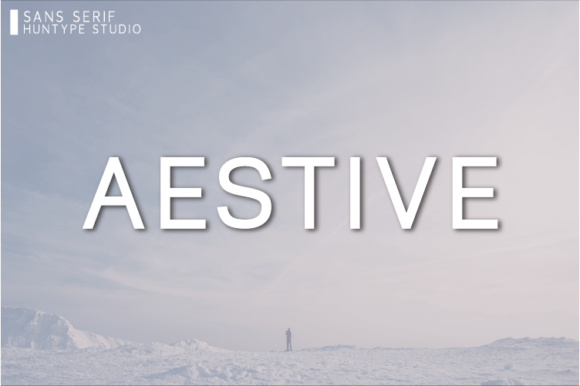
The Designer’s Delight: Aestive Font
I still remember the frustration of working on a project, hours spent crafting the perfect design, only to be held back by one thing: the font. It was a client request for a modern, minimalist look, but every sans serif font I tried seemed too bland or too bold. That’s when I stumbled upon Aestive, a game-changing font that has since become a staple in my design toolkit.
Aestive: The Minimalist’s Dream
Aestive is a minimal and neat sans serif font that’s incredibly versatile. Its clean lines and simple shapes make it perfect for a wide range of projects, from branding and advertising to crafting and DIY tutorials. With Aestive, you can add a touch of sophistication and elegance to your designs, making them stand out in a crowded creative landscape.
What I Love About Aestive ✨
- ✅ Clean and minimalist design: Aestive’s simple shapes and clean lines make it perfect for modern designs.
- ✅ Highly legible: Even at small sizes, Aestive remains clear and easy to read.
- ✅ Versatile: Aestive works well in a variety of contexts, from digital designs to print materials.
- ✅ OpenType features: Aestive supports a range of OpenType features, including glyphs and stylistic alternates.
- ⚠️ Limited italic options: Aestive’s italic styles are somewhat limited, which may not be ideal for designs that require a lot of emphasis.
- ⚠️ Not ideal for body text: While Aestive is legible, it’s not the best choice for long blocks of body text due to its minimalist design.
The Designer Behind Aestive
Aestive was designed by a team of creatives who wanted to create a font that was both beautiful and functional. Inspired by modern design trends and a passion for minimalism, Aestive was crafted to be a versatile font that could be used in a wide range of contexts. From branding and advertising to crafting and DIY tutorials, Aestive is the perfect choice for designers who want to add a touch of sophistication to their work.
| Author | Huntype |
Q: What is Aestive font?
A: Aestive is a minimal and neat sans serif font designed for use in a wide range of creative projects.
Q: What are the key features of Aestive?
A: Aestive features clean lines, simple shapes, and a highly legible design. It also supports OpenType features, including glyphs and stylistic alternates.
Q: Is Aestive suitable for body text?
A: While Aestive is legible, it’s not the best choice for long blocks of body text due to its minimalist design. It’s better suited for headings, titles, and short paragraphs.